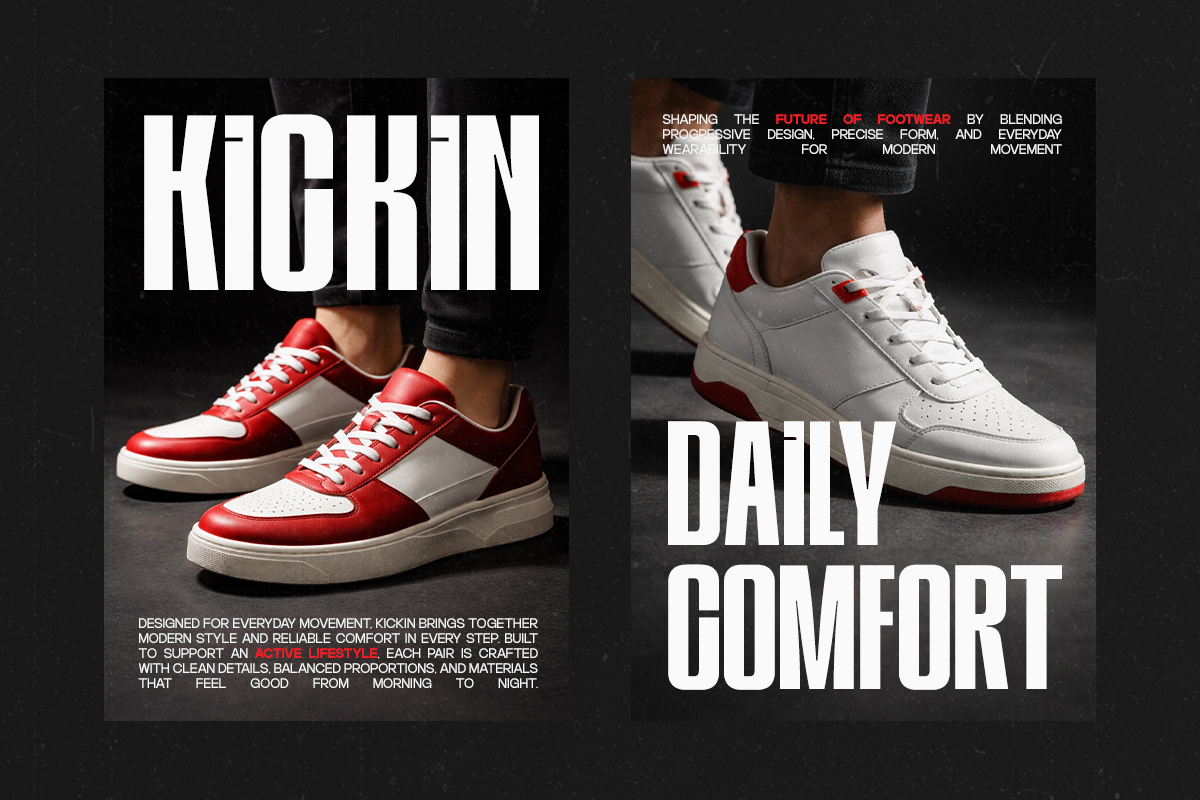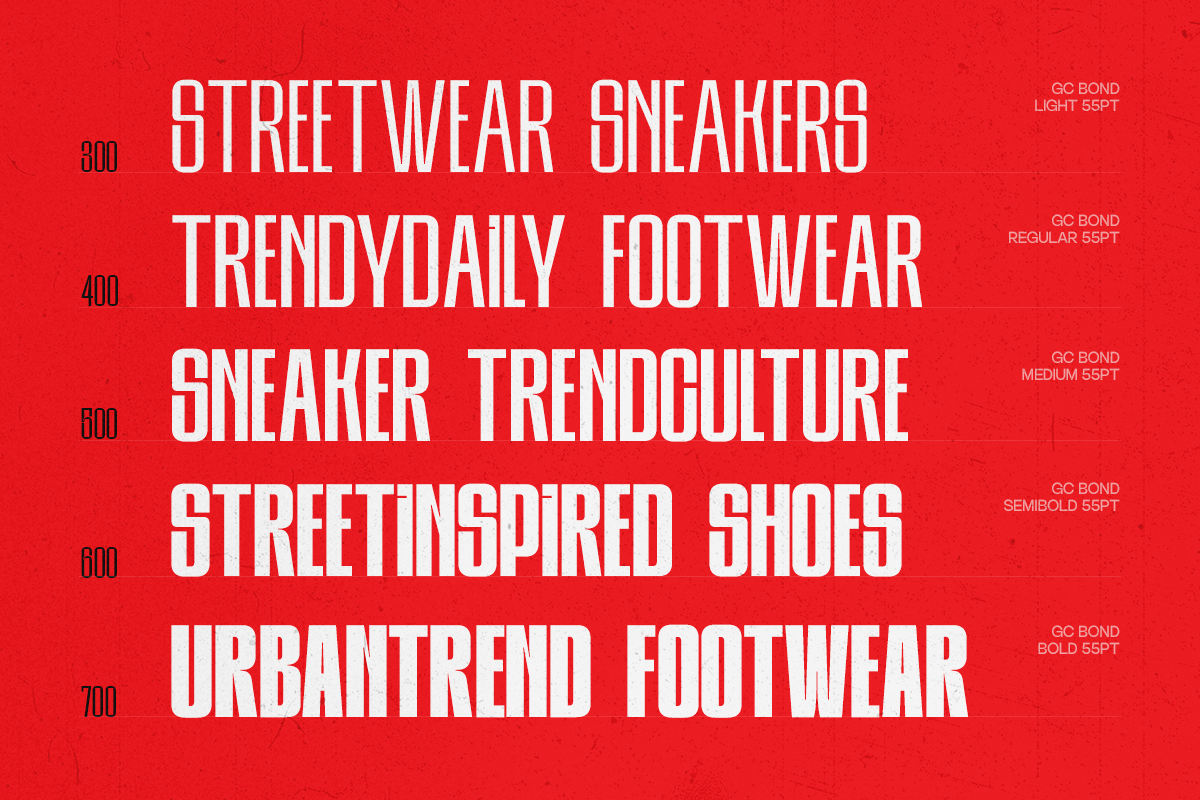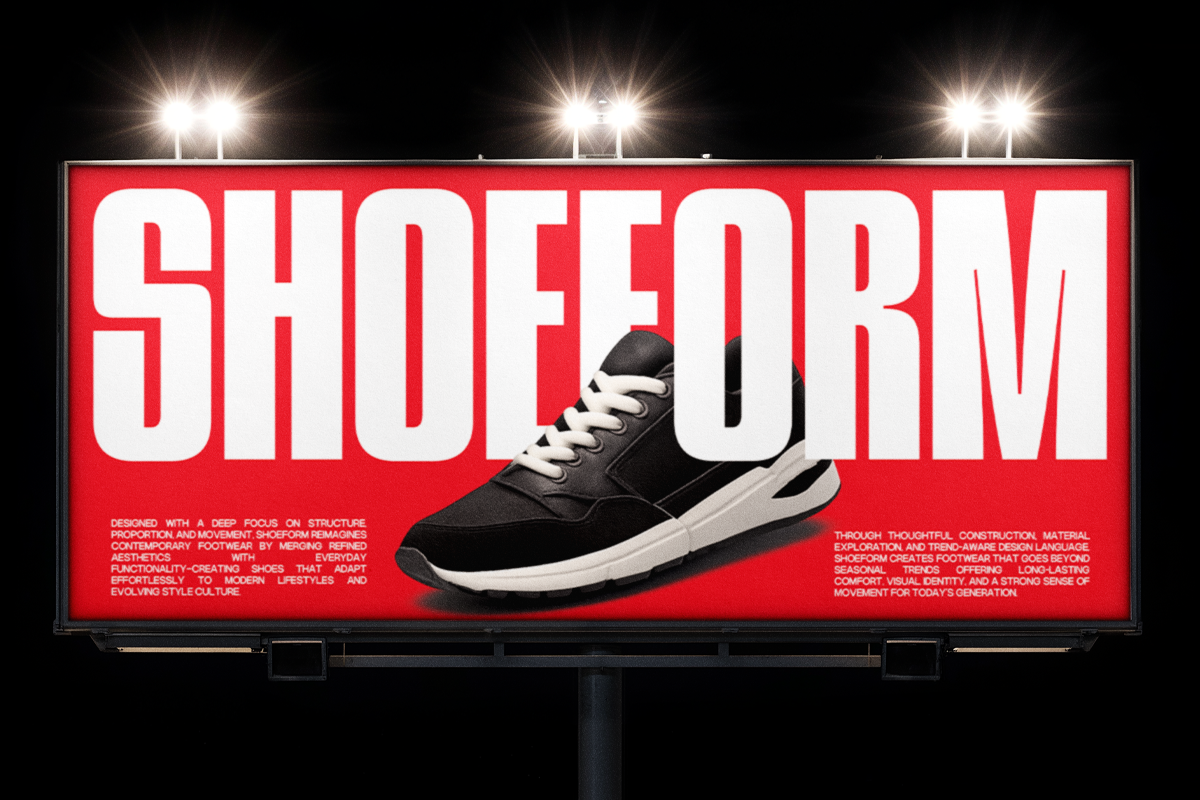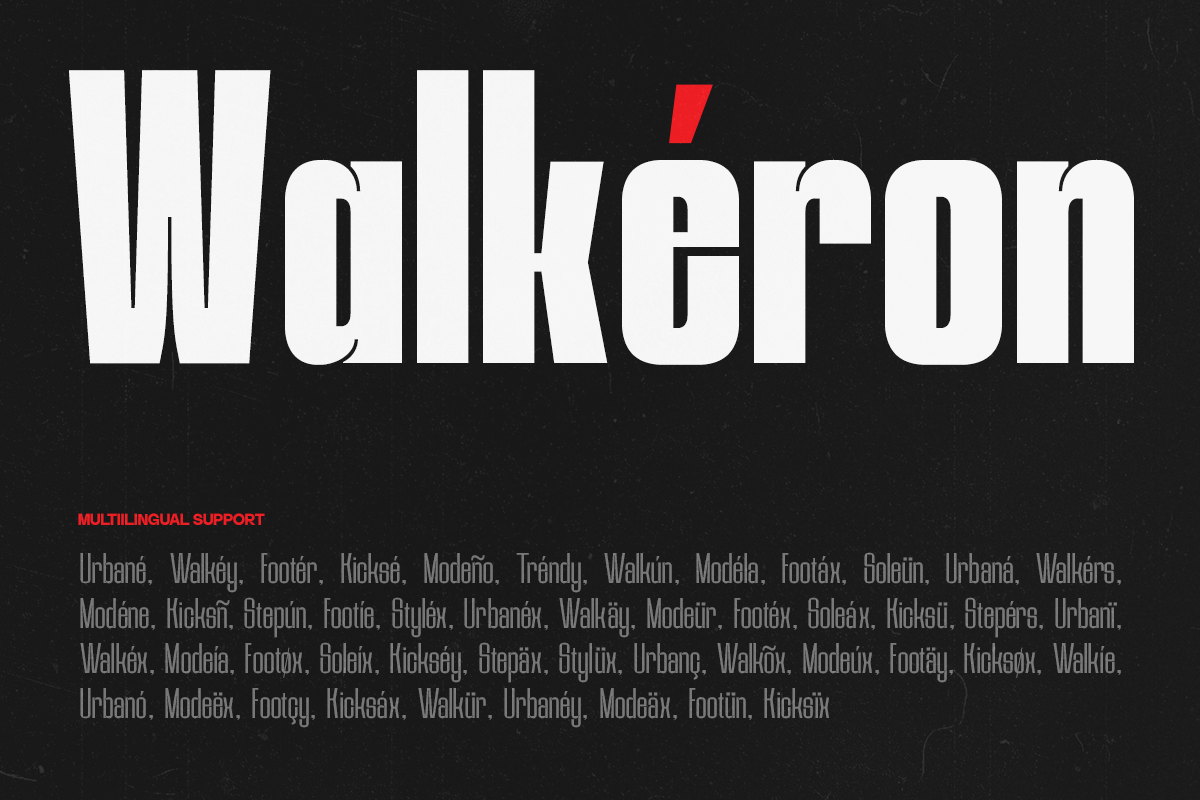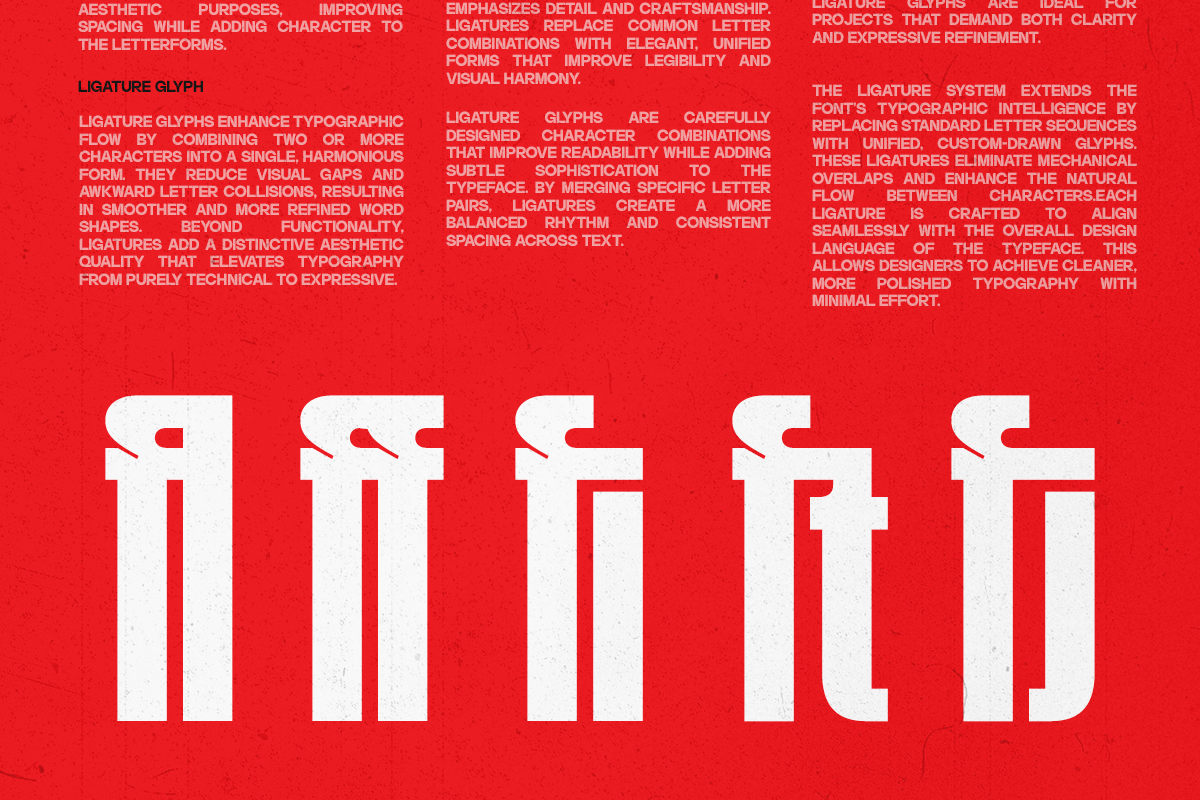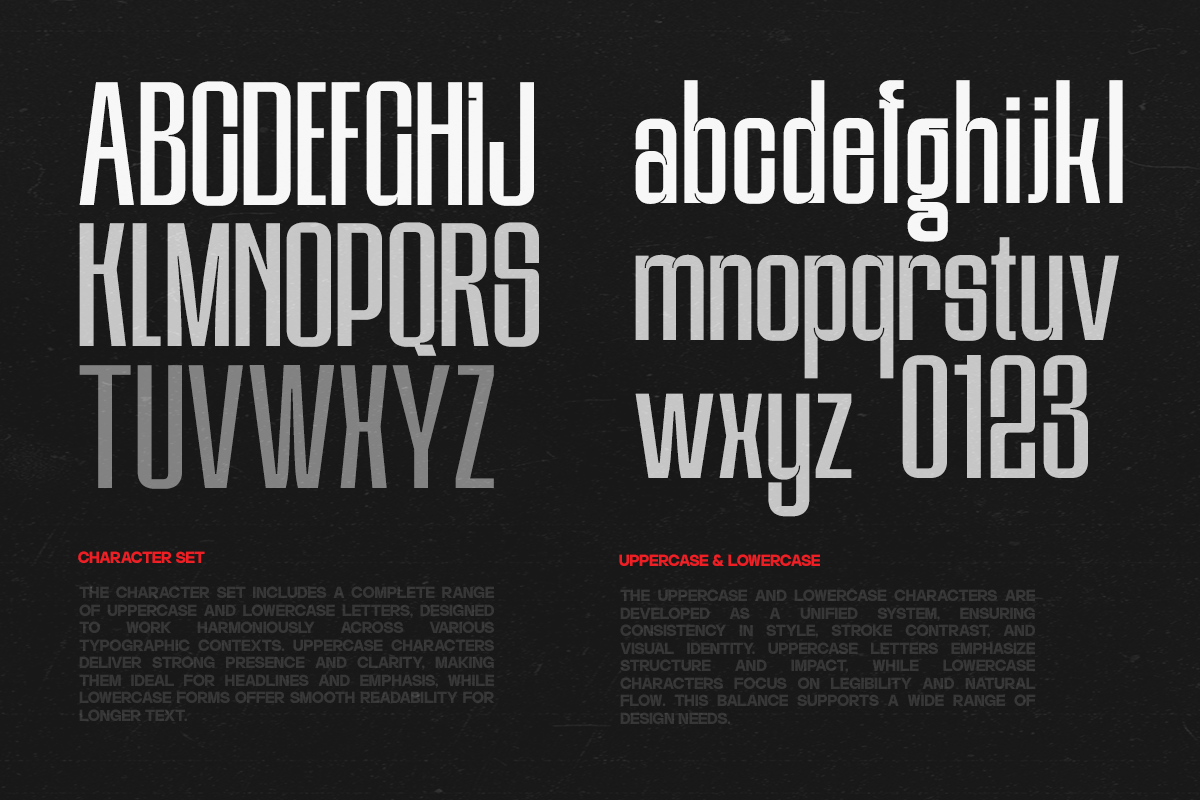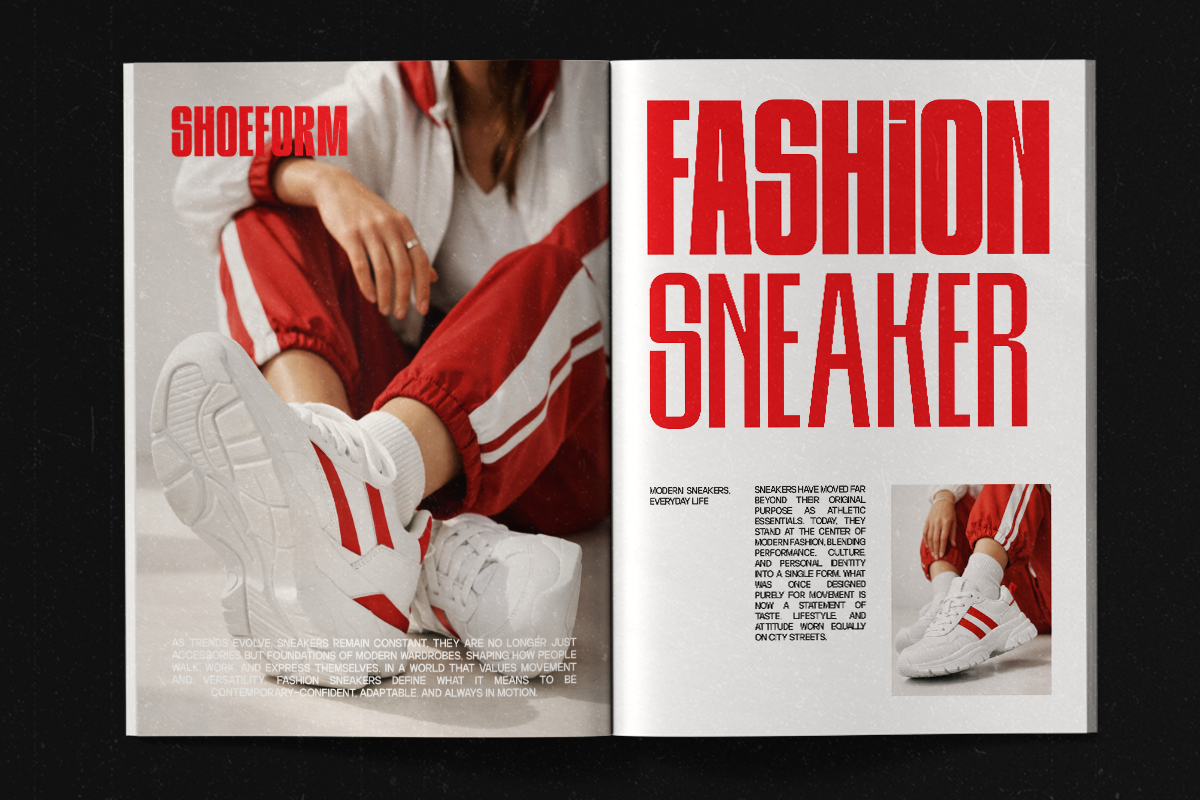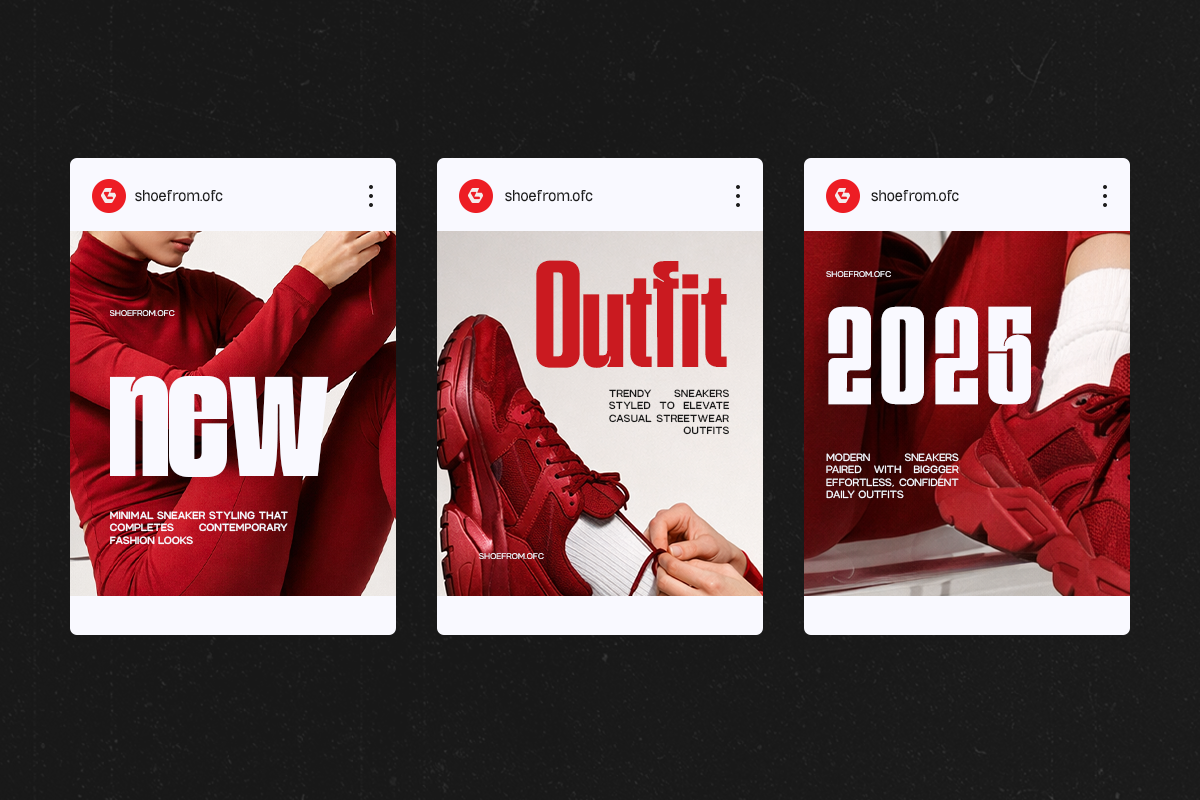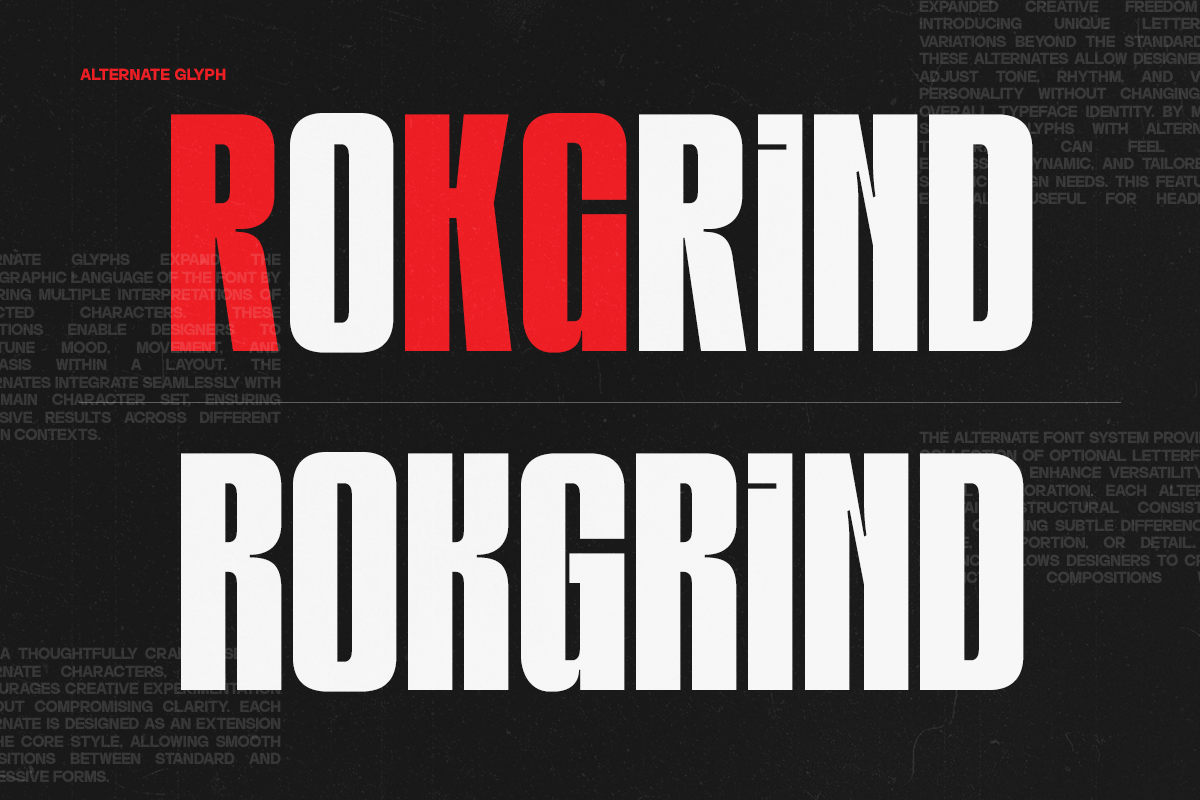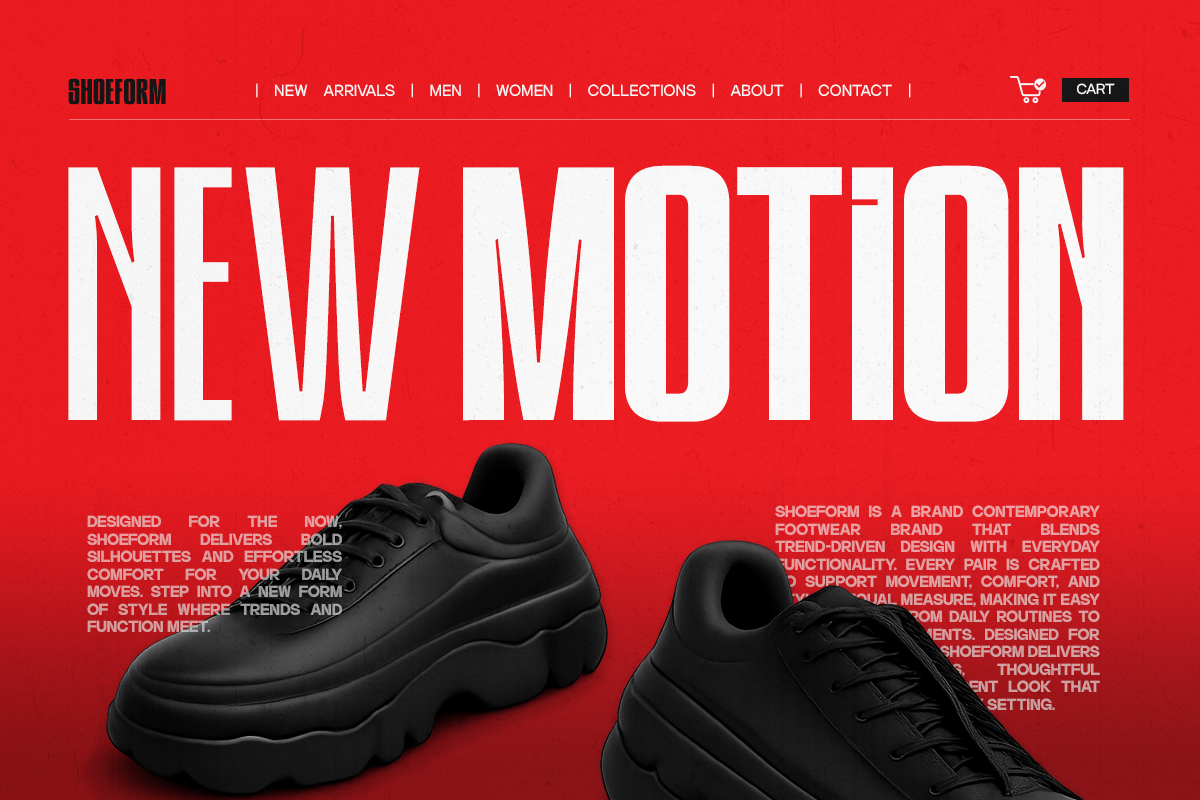
GC Bond - Inktrap Condensed
GC Bond – Inktrap Condensed is a contemporary sans serif typeface family designed with a condensed structure and inktrap detailing to deliver strong readability, efficiency, and modern character. Built for clarity in tight spaces, GC Bond combines sharp geometry with functional inktraps—ensuring optimal performance across both digital and print environments.
Designed as a complete font family, GC Bond offers multiple styles that provide flexibility and consistency across typographic systems. Its condensed proportions make it ideal for headlines, branding, editorial layouts, posters, and space-conscious design applications, while the inktrap construction enhances legibility at smaller sizes and in high-contrast outputs.
With precise detailing and confident letterforms, GC Bond balances technical function with visual impact. Whether used for bold titles, structured layouts, or modern visual identities, this typeface family delivers a strong, efficient, and contemporary typographic voice.
- Condensed Sans Serif Family
- Inktrap Letter Construction
- Optimized for Tight Layouts & Display Use
- Multilingual Support (170+ Languages)